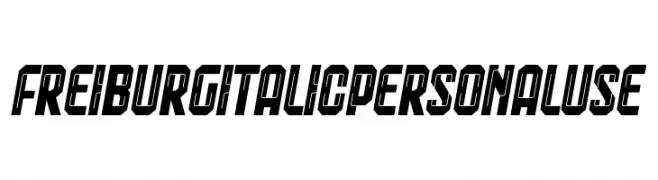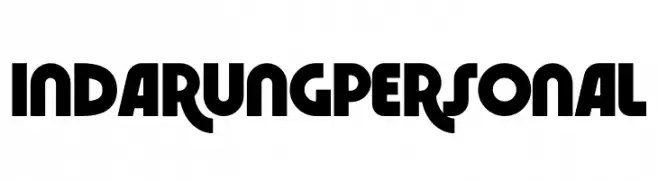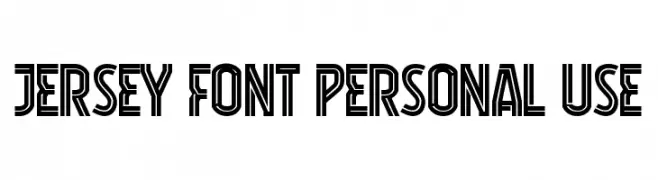
A bold, italic, and dynamic font with high contrast and angular design.
A bold, geometric font with angular lines and tight spacing.
A bold, shadowed font with a distressed, vintage look.
A bold, geometric font with a three-dimensional layered effect.
A bold, italic font with a double-line effect and dynamic style.
A bold, geometric font with a futuristic and angular design.
A bold, rounded font with a playful and chunky style.
A bold, geometric font with angular lines and a modern industrial feel.
A bold, geometric font with a modern, futuristic style.
A bold, geometric font with a double line effect, ideal for sports-themed designs.